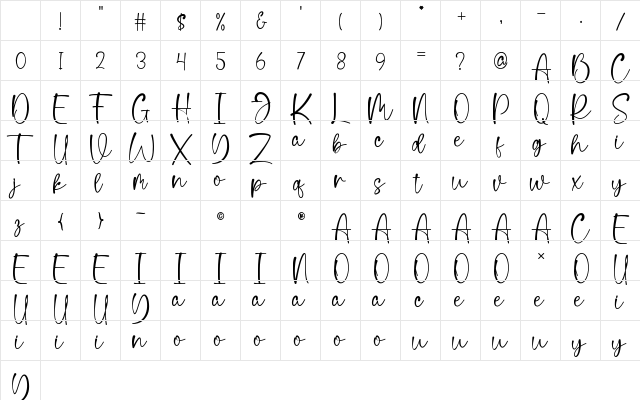
Monstera Regular Free Font
Monstera Regular
Foundry: Wahyu Studio
Designer: Wahyu Setiyawan
Design Context for Monstera
Monstera is a composed and adaptable typeface that performs quietly and consistently across a wide range of design contexts.